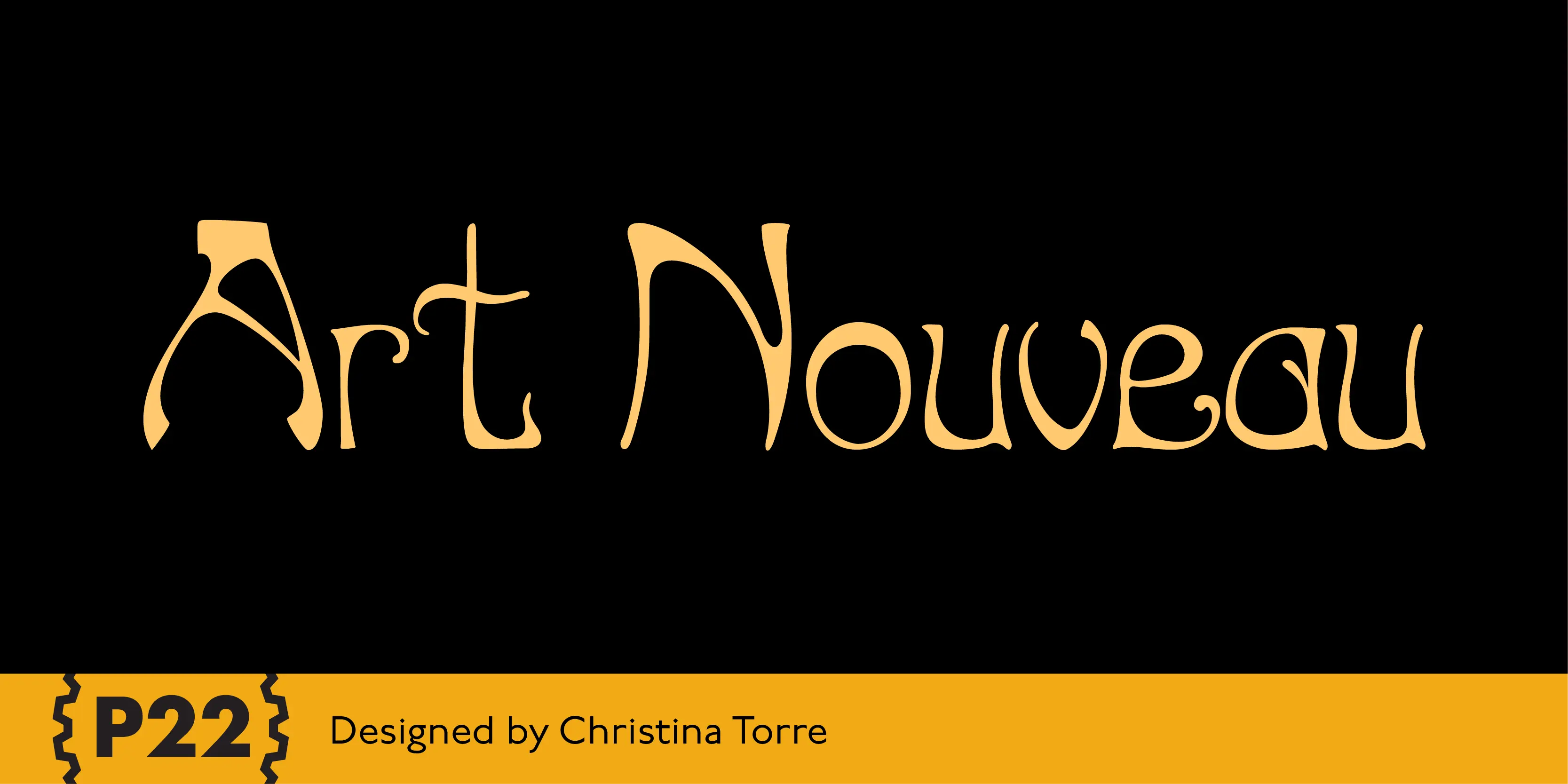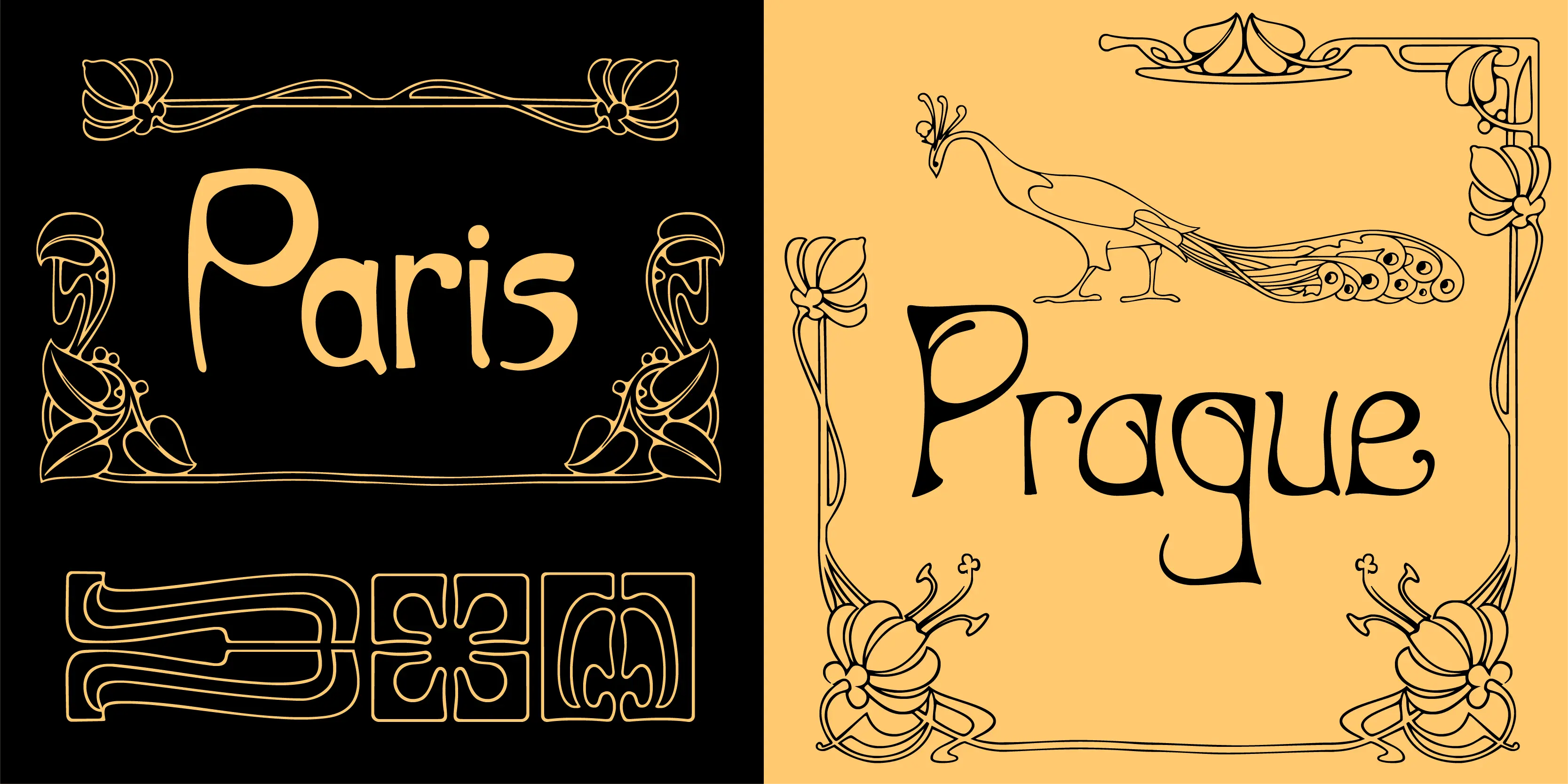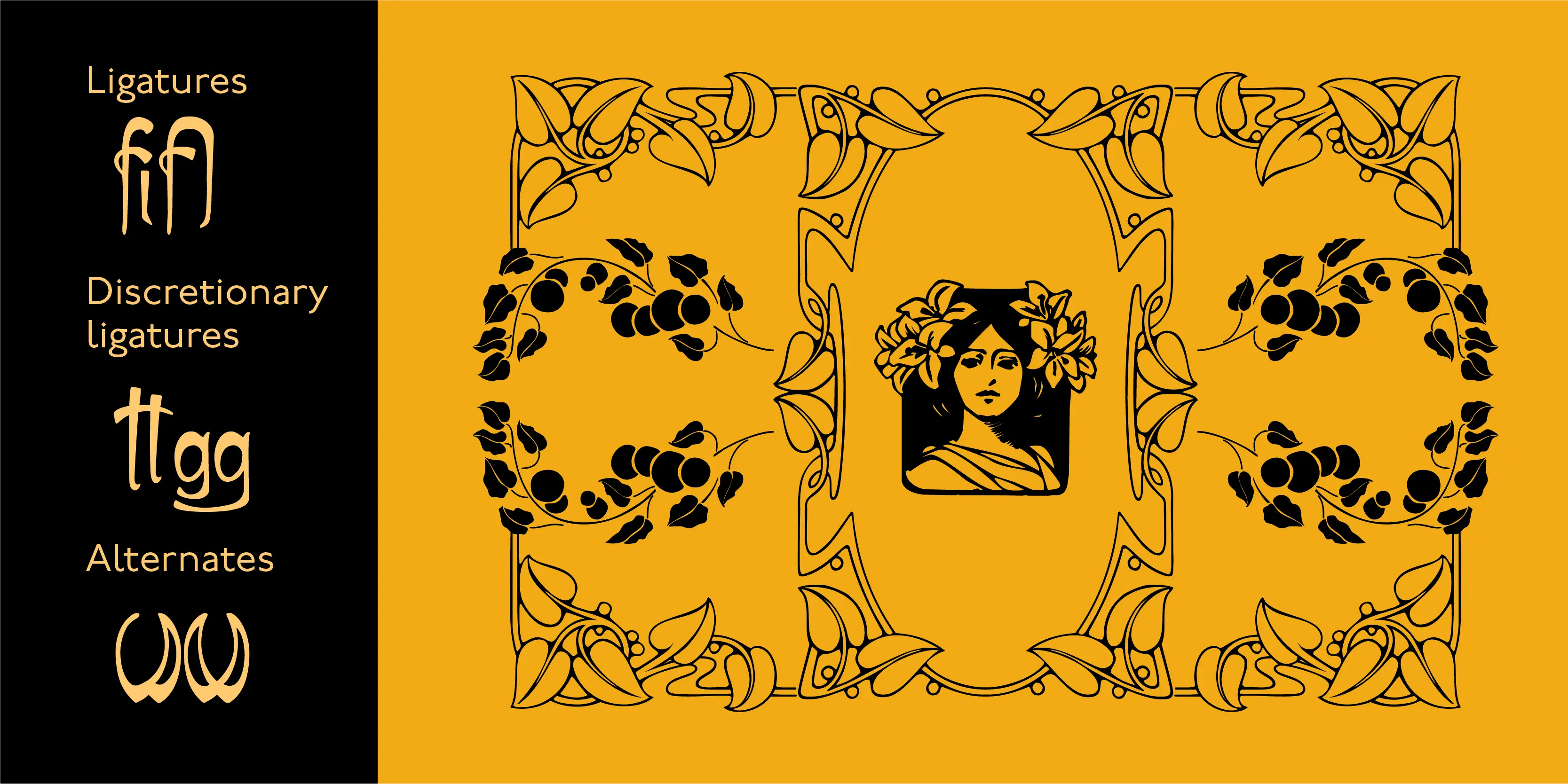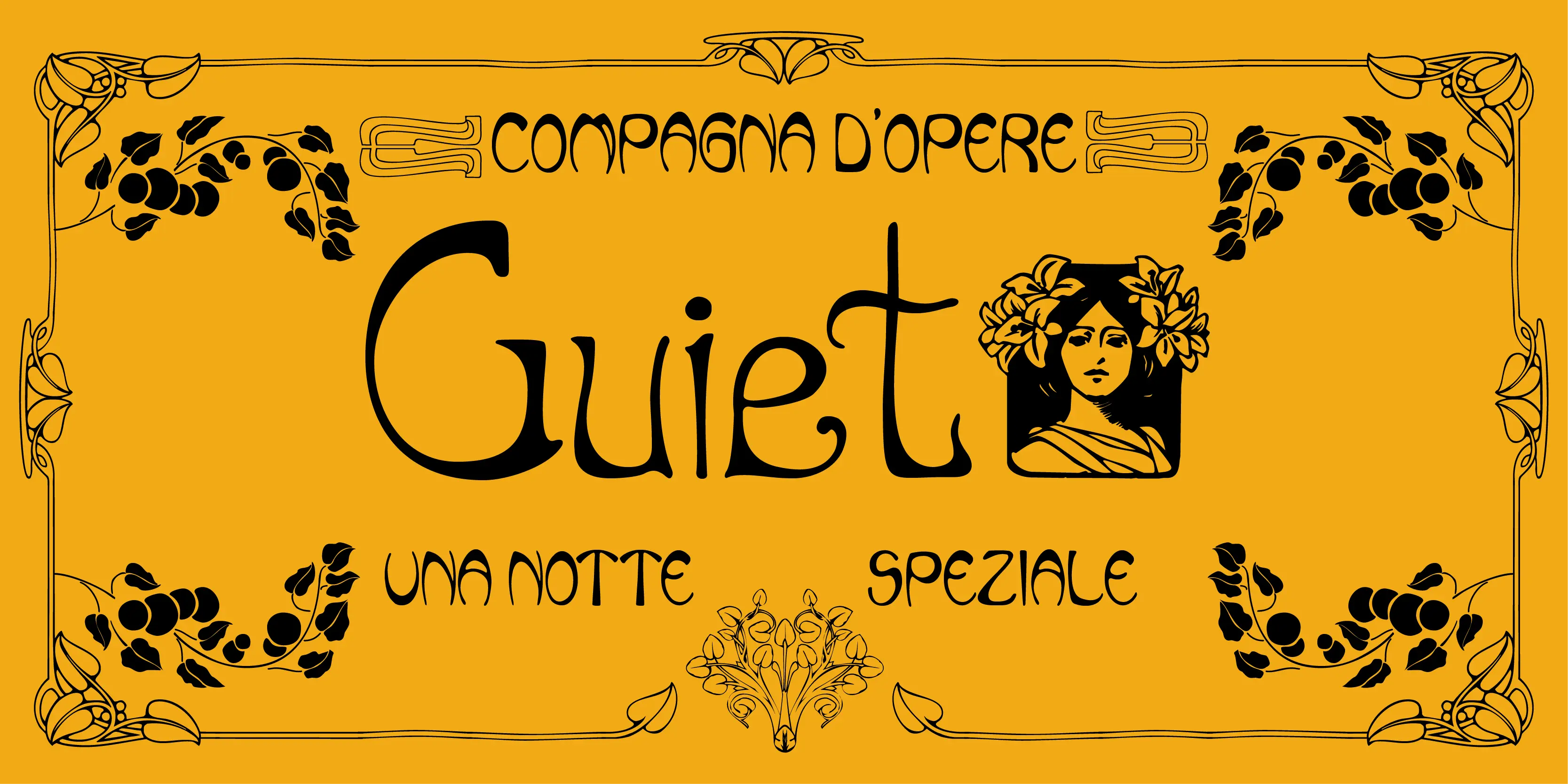
Art Nouveau Font Family
• Art Nouveau Bistro
• Art Nouveau Cafe
Art Nouveau
The Art Nouveau styles of the late 19th century exhibited a bold approach to organic lines and lavish decoration. This new style was spread throughout the world and helped usher in a new era that led to modern art and design.
Stylistic Set 1
Stylistic Set 2
Stylistic Set 3
Stylistic Set 4
Stylistic Set 5